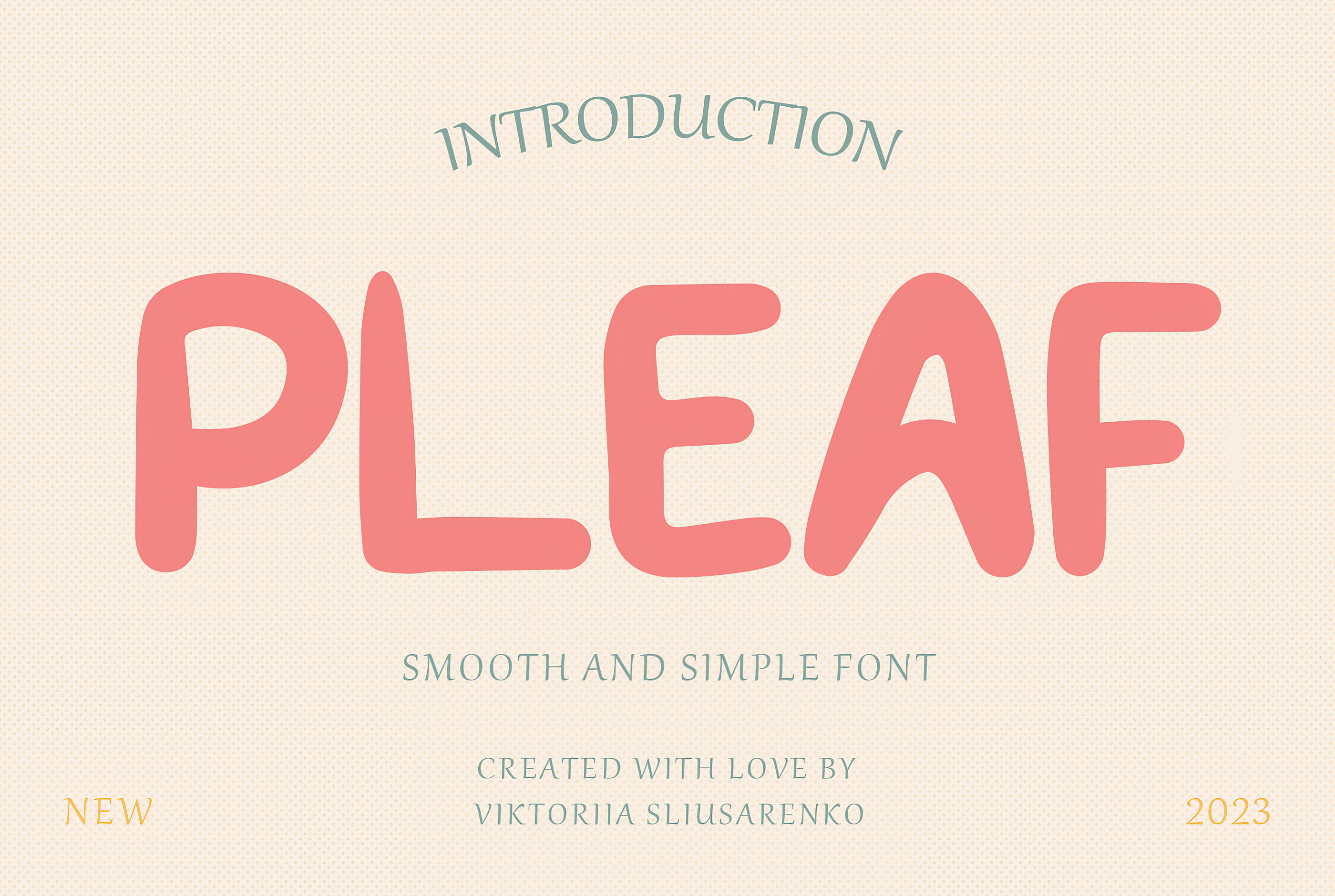
PLEAF smooth and simple font
Introducing Pleaf, the perfect convergence of fonts, typography, calligraphy, and hand-lettered artistry. This enchanting handwritten font adds a delightful and whimsical touch to your designs. Its vector format embodies a lively and comics-inspired aesthetic, featuring smooth lines that exude joy and light-heartedness. With soft edges, Pleaf creates a gentle and approachable look reminiscent of the captivating world found within children's books.
Whether you're crafting a logo for a whimsical children's brand or designing vibrant social media graphics for a playful campaign, Pleaf is the perfect companion. Watch as your designs come to life with an infusion of whimsy, charm, and a delightful dose of personality. Let Pleaf take you on a magical journey where imagination knows no bounds!